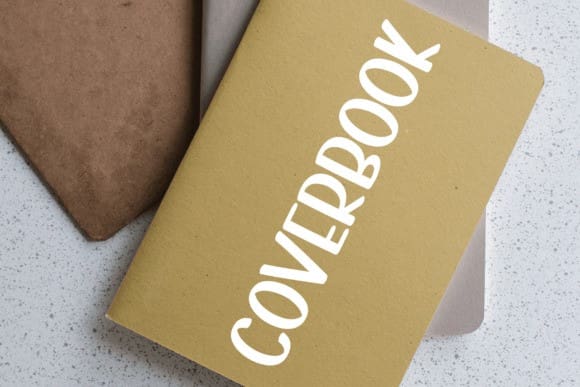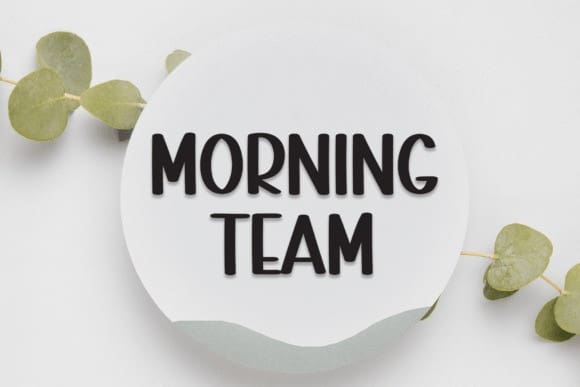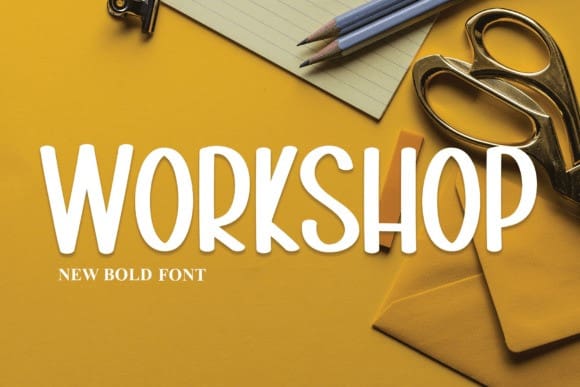
Workshop Display Font
Workshop Display Font, is a bold, all-caps display font featuring the perfect amount of trendiness. Whether you’re using it for crafting, digital designing, presentations, or greeting card making, it’s perfect!